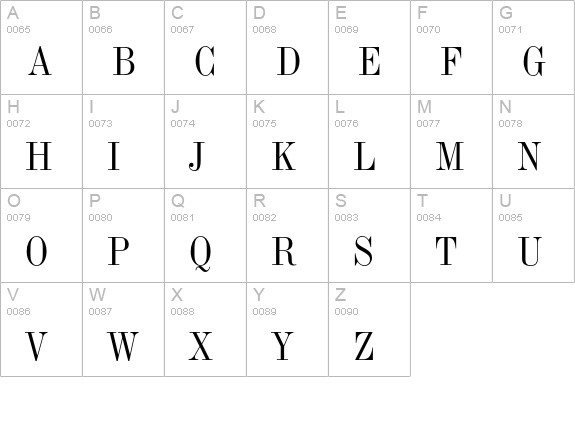
Industrial 736 font is a striking and bold typeface that exudes a sense of power and strength. With its clean lines and sturdy construction, this font is perfect for conveying a sense of industrial sophistication in any design project. The letters in Industrial 736 font are meticulously crafted, with sharp edges and angular forms that give it a distinctive and modern look. It is a versatile typeface that can be used for a variety of purposes, from headlines and logos to product packaging and signage. One of the standout features of Industrial 736 font is its versatility. It can be used effectively in both large and small sizes, making it suitable for a wide range of applications. Whether you need to make a bold statement or convey a sense of professionalism, this font has got you covered. What sets Industrial 736 font apart from other industrial-inspired fonts is its attention to detail and meticulous craftsmanship. Each letter is carefully designed to create a harmonious and balanced overall look. The result is a font that is both visually stunning and highly readable. The best part? Industrial 736 font is freely available to download at FontsMarket.com. This means that you can add this amazing font to your design arsenal without breaking the bank. Whether you're a professional designer or just starting out, having access to high-quality fonts like Industrial 736 can greatly enhance your creative projects. So, if you're looking to add a touch of industrial sophistication to your designs, look no further than Industrial 736 font. With its bold and powerful aesthetic, versatility, and the fact that it's freely available to download at FontsMarket.com, this font is a must-have for any designer or creative professional.